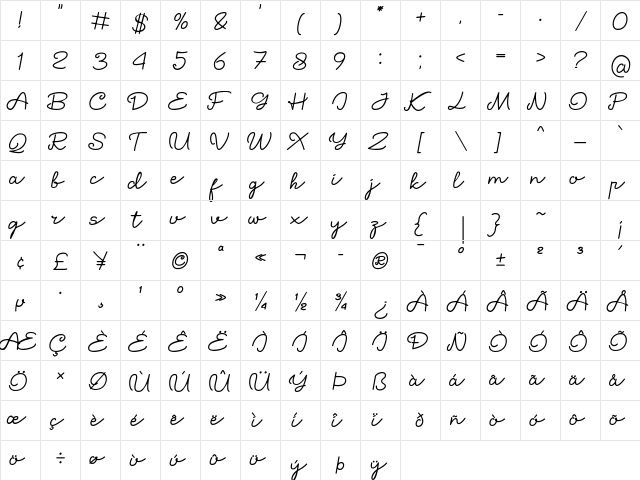
Oullins Regular
| Designer | Sungi Creative |
Design Context for Oullins Typeface
Oullins is a composed and adaptable typeface that performs quietly and consistently across a wide range of design contexts.